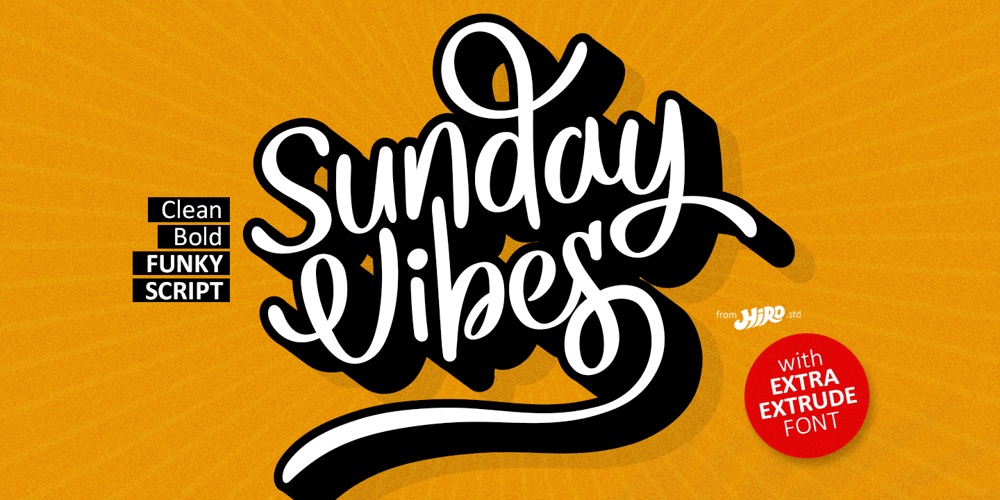
Sunday Vibes Font Family was designed by Chairul Ashar and published by HIRO.std. Sunday Vibes contains 2 styles and family package options. Sunday Vibes is clean, bold, funky script.This font describes about stylist, fun and elegant, catchy, dynamic, humanist, readable, easy to use and will bring a good harmony when the letters are connected and paired each other. FEATURES- Support Opentype Features- Support Ligatures- Stylistic Alternates- Numbering and Punctuations- PUA Encoded Characters- Multilingual Support- Works on PC or MacUSESunday Vibes works great in any logotype, magazines, apparel, social media posts, advertisements, product packaging, product designs, label, and any projects that need funky script.